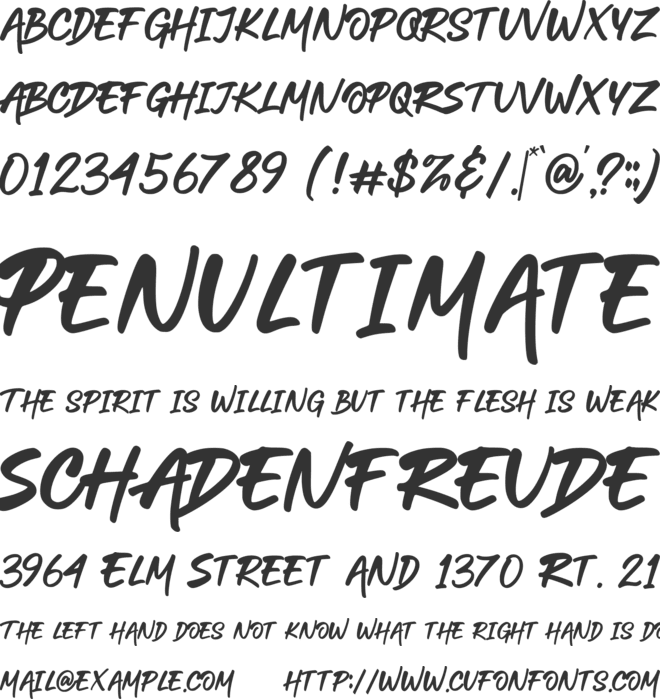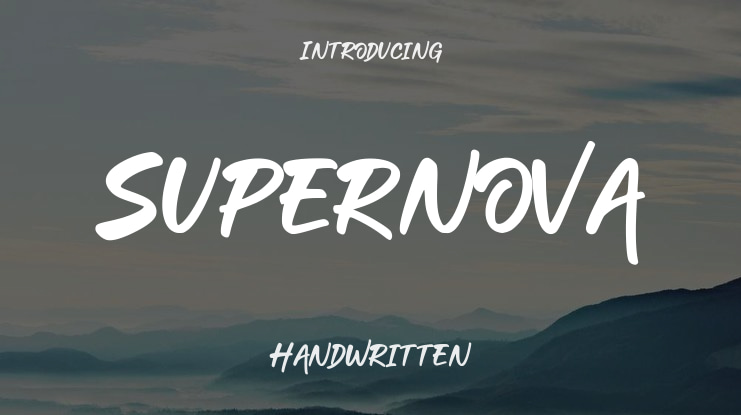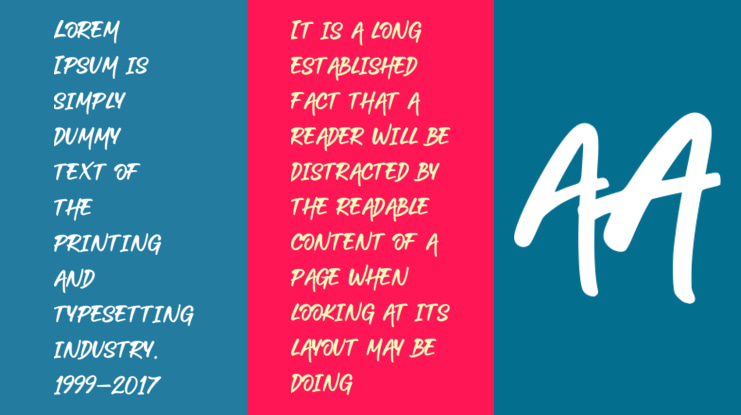
Supernova Font
Bery Arisandi , Basnistudio
Introducing Supernova a Markertype that adds a Natural, Bold & Strong touch to everything from branding and social media to invitations and packaging.